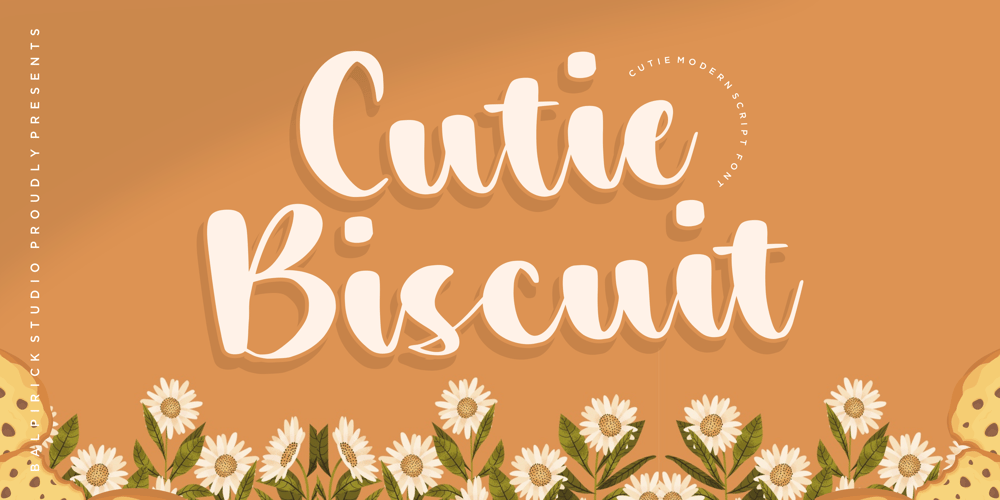
Cutie Biscuit Font Family was designed by Restu Angga and published by Balpirick. Cutie Biscuit contains 1 styles and family package options. Cutie Biscuit is perfect for product packaging, branding project, magazine, social media, wedding, or just used to express words above the background. This font includes TTF, Cutie Biscuit also has multilingual support.